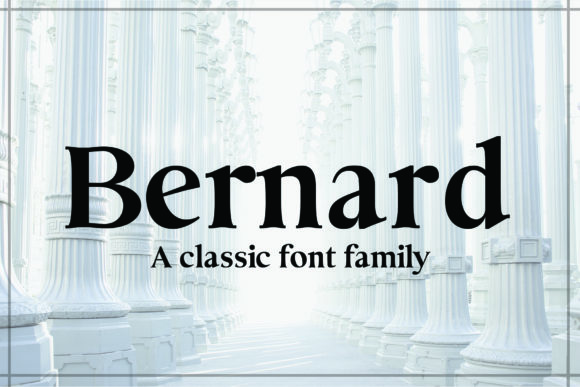
Behold, the Bernard Font, a stroke of typographic brilliance that harmoniously blends the allure of timeless tradition with the verve of modern aesthetics. Crafted by the deft hands of denestudios, this captivating serif font is a visual symphony designed to elevate your creative endeavors to new heights.
Bathed in the soft glow of history, Bernard Font draws inspiration from the enduring elegance of classic serif fonts, evoking a sense of sophistication and refinement. Yet, it defies the constraints of convention, infusing its form with a contemporary twist that breathes life into the familiar.
The subtle curves of Bernard Font dance across the page with a grace that is both alluring and inviting, inviting the reader to delve deeper into the world of words. Its minimal serifs, like delicate brushstrokes, add a touch of understated elegance, enhancing the overall visual appeal without overpowering the content.
With Bernard Font as your creative companion, you'll find yourself effortlessly crafting designs that exude an air of both timeless allure and modern relevance. Whether you're a seasoned designer or just starting your typographic journey, Bernard Font is the perfect choice for adding a touch of sophistication and charm to your projects.
Immerse yourself in the world of Bernard Font and discover a font that is as versatile as it is beautiful. Let your creativity soar as you explore the endless possibilities it offers, from elegant invitations and polished reports to stunning social media posts and eye-catching marketing materials.
Don't settle for ordinary fonts that blend into the background. Embrace the power of Bernard Font and watch your words leap off the page, captivating your audience and leaving a lasting impression. Join the ranks of discerning designers and typographers who recognize the transformative power of a truly exceptional font.
Bernard Font awaits you, ready to ignite your imagination and elevate your designs to new heights. Embrace its timeless beauty and modern flair, and experience the joy of creating with a font that truly inspires.